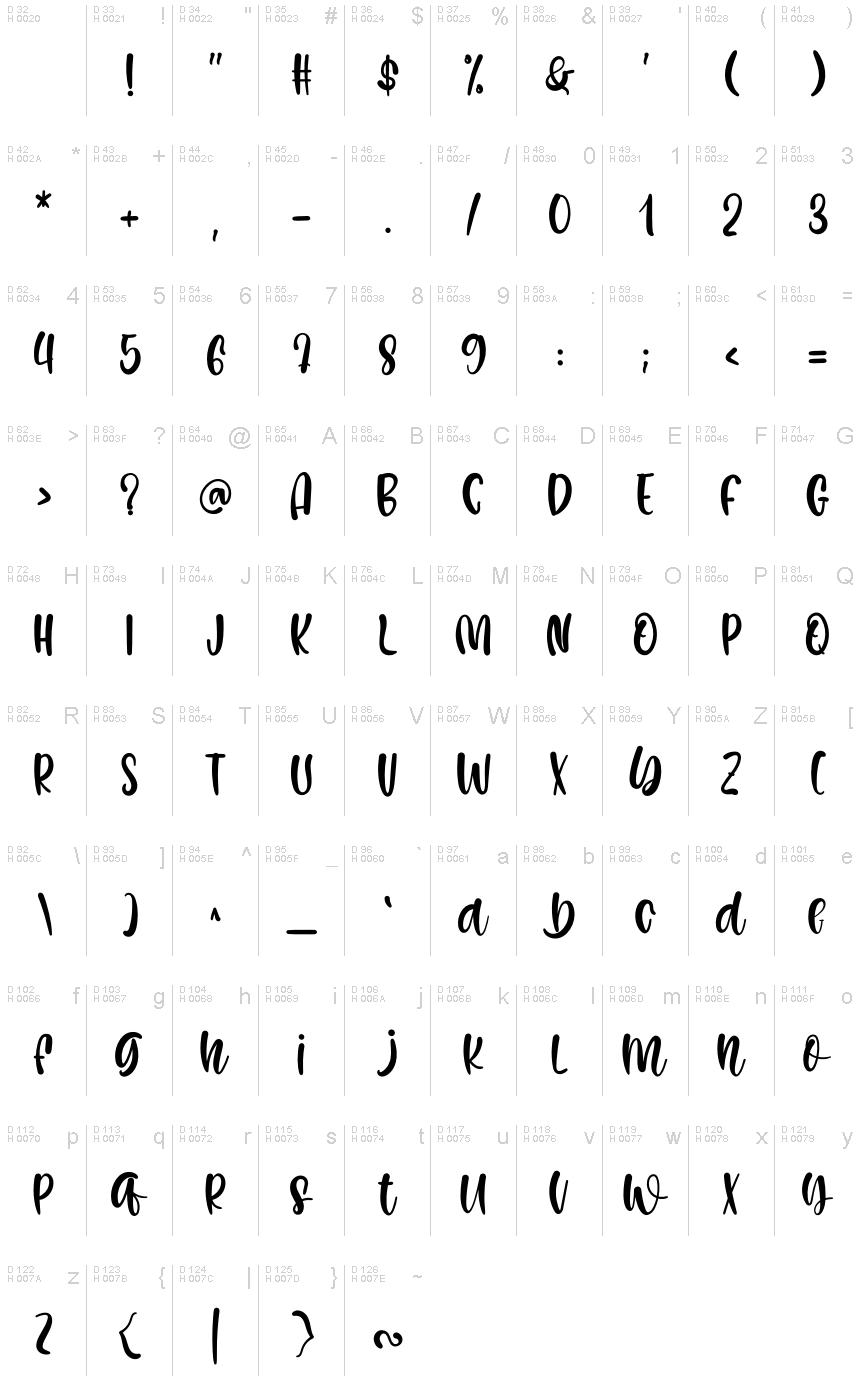
Sweetme
Sweetme font, designed by PiPi Creative, is a charming handwritten typeface that exudes warmth and personality. Its seamless flow captures the essence of genuine expression, making it perfect for any design that seeks to evoke a sense of intimacy. The condensed style contributes to its elegant appearance, allowing for graceful readability without sacrificing character.
Visually appealing yet practical, Sweetme shines in various applications—whether on greeting cards, branding materials, or social media graphics. It invites connection and engagement while maintaining a sophisticated allure. This font embodies creativity and artistry, promising to captivate audiences with its playful yet refined essence.